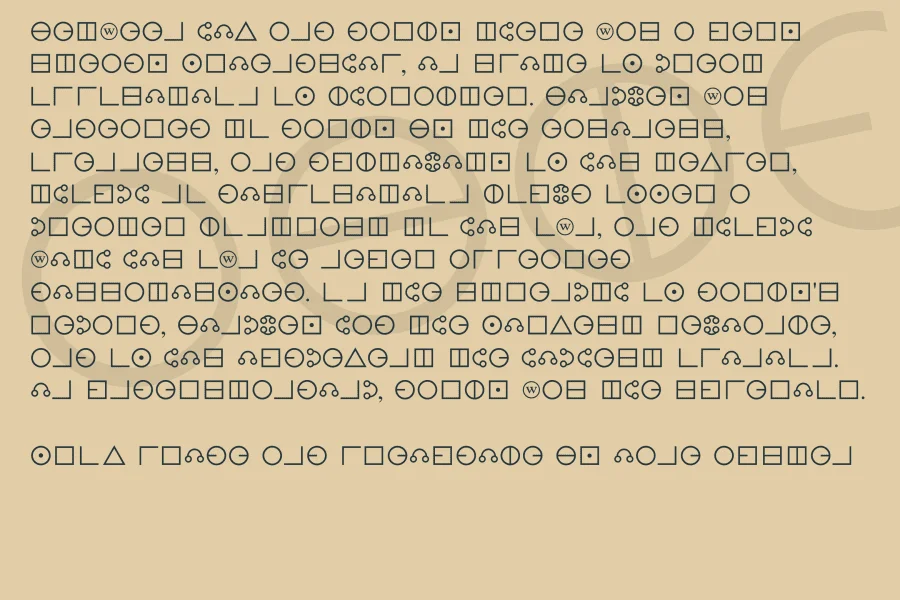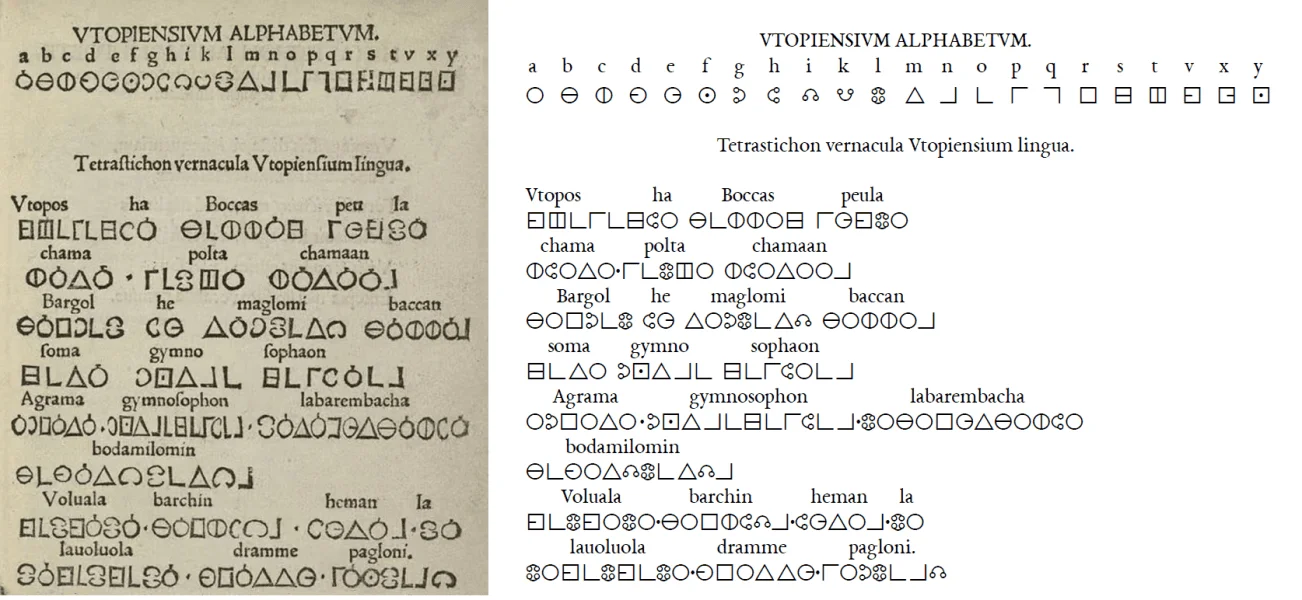
An open-source dingbat font.
Utopiensium is a faithful digital reconstruction of the historical, constructed alphabet featured in Thomas More’s 1516 book Utopia. Its visual structure is entirely monoline, utilizing a uniform stroke weight that forms primitive, elemental shapes. Rather than traditional Latin letterforms, the typeface is composed of a systematic vocabulary of circles, squares, triangles, and bisected geometric volumes that stand in for the standard Latin alphabet. The resulting texture is rigid, architectural, and cryptic, evoking the feeling of an ancient, mathematical code or a speculative Renaissance language.
Because of its abstract, symbolic nature, this typeface is best suited for specialized display applications, historical editorial design, and world-building projects. It excels in book design, speculative fiction branding, thematic packaging, and interactive digital interfaces where a sense of mystery, historical reconstruction, or esoteric knowledge is required.